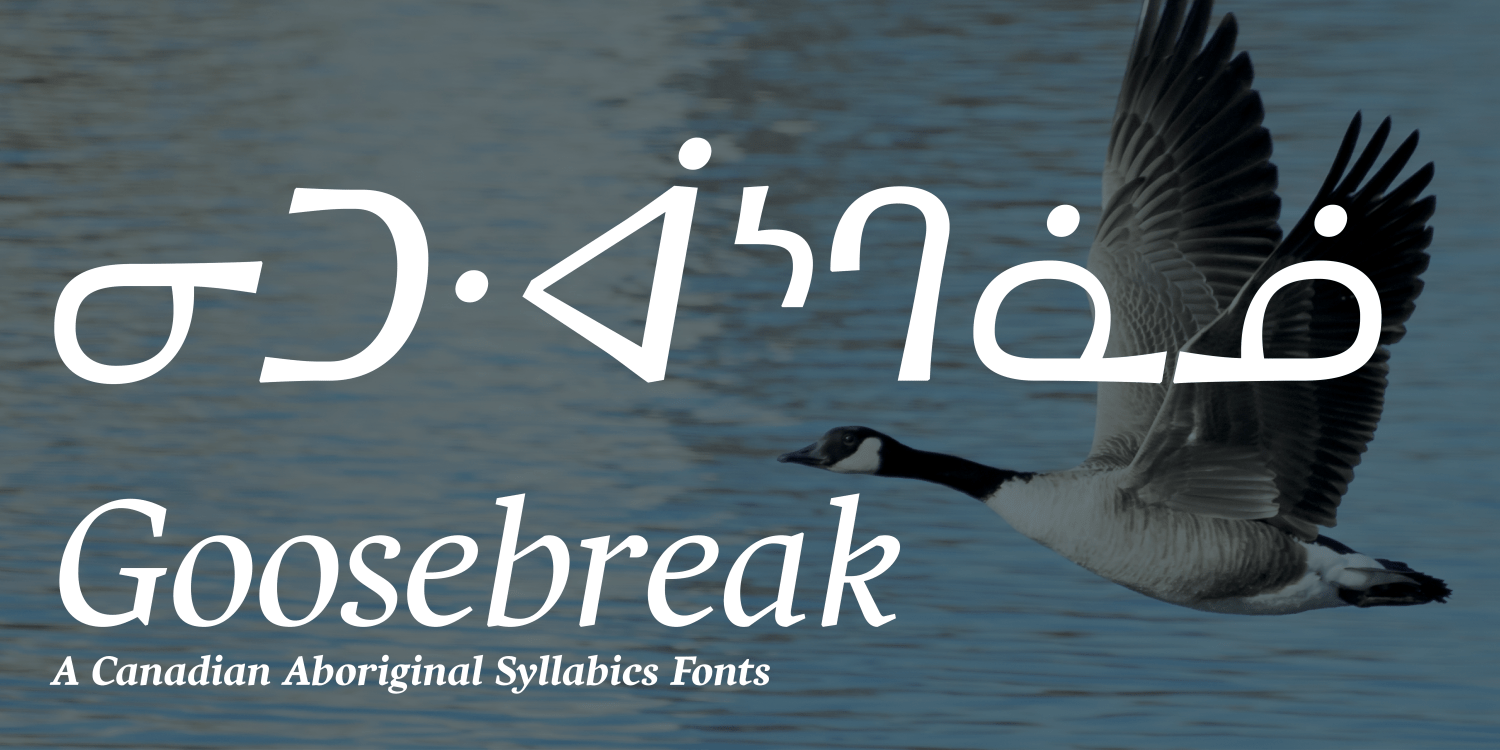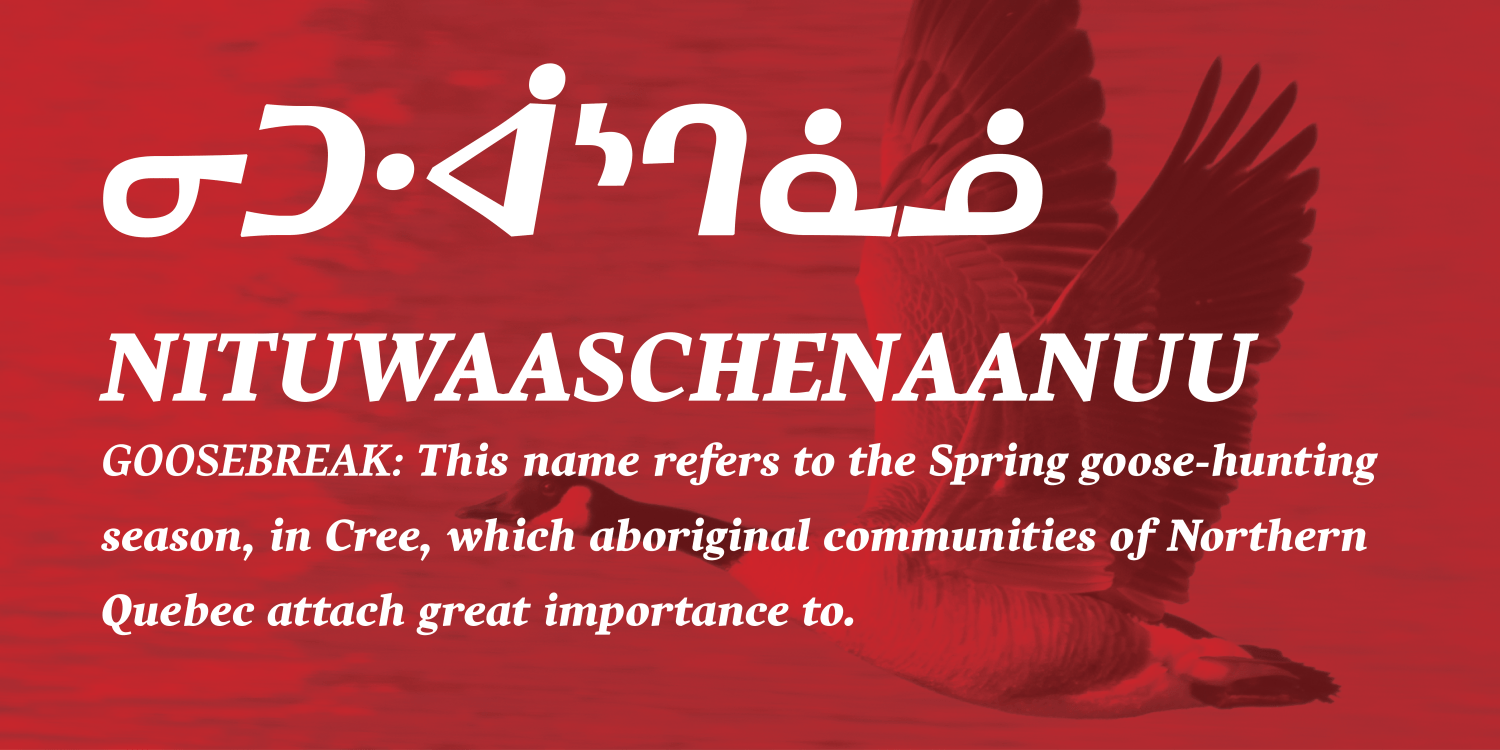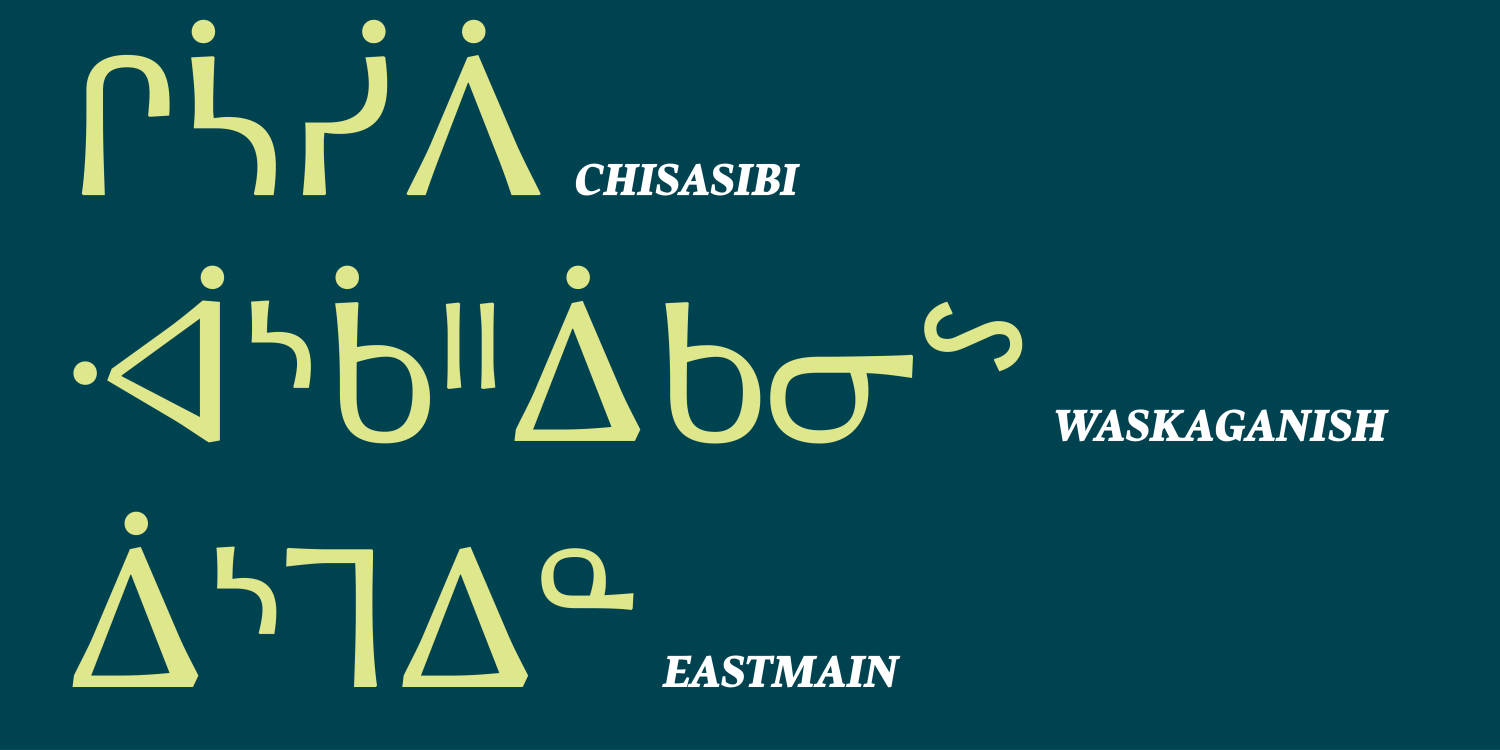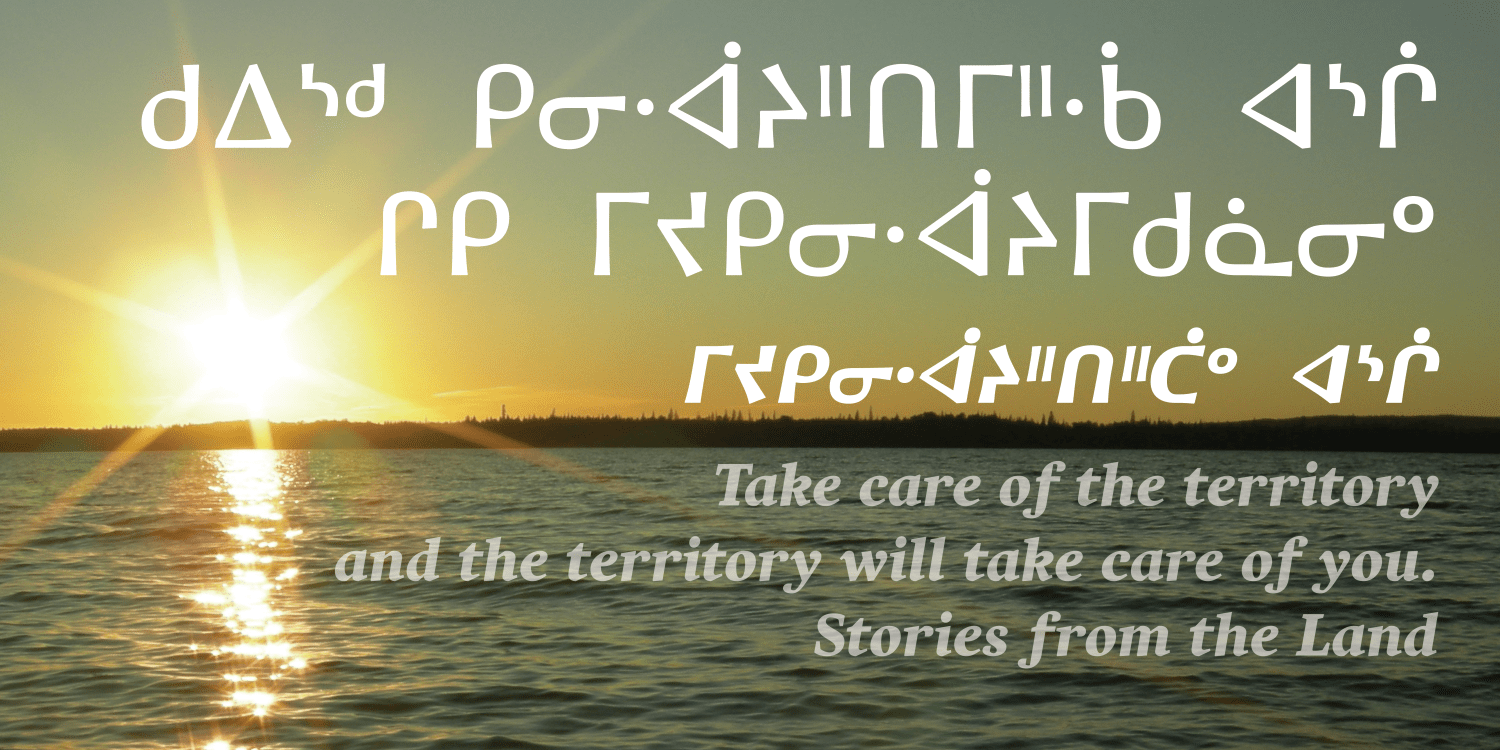
Goosebreak
Font Family by André Simard
After using a few existing fonts with support for Canadian Aboriginal languages, André Simard was inspired to create his own design — something with a strong personality that evoked the forms of nature (as channeled through a calligraphers’ pen). Using his own Harfang Pro typeface as a foundation, André embarked on a multi-year journey to complete the design. The resulting 12-font family includes support for all Canadian Aboriginal languages, and is suitable for both editorial writing and advertising.
The name Goosebreak refers to the Spring goose-hunting season (‘nituwaaschenaanuu’ in Cree), which carries great importance to the aboriginal communities of Northern Quebec.